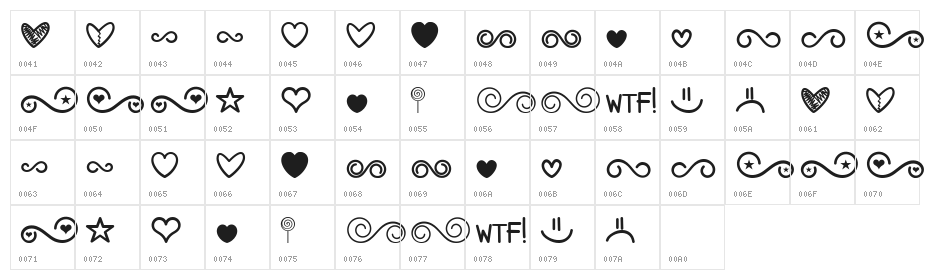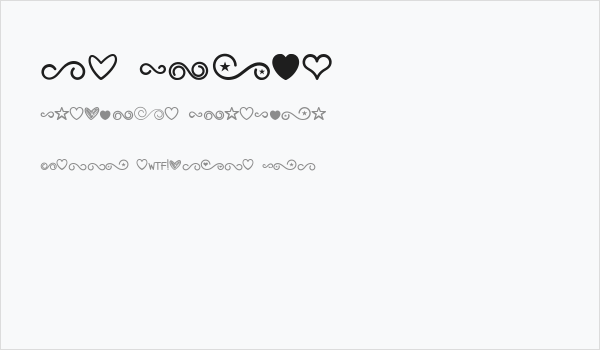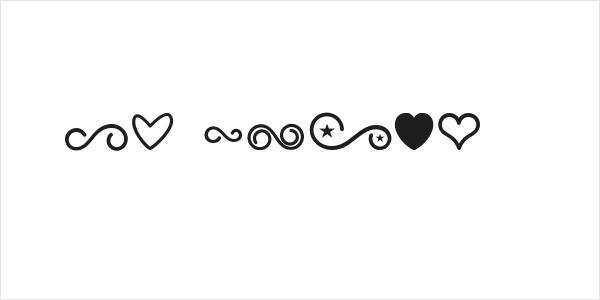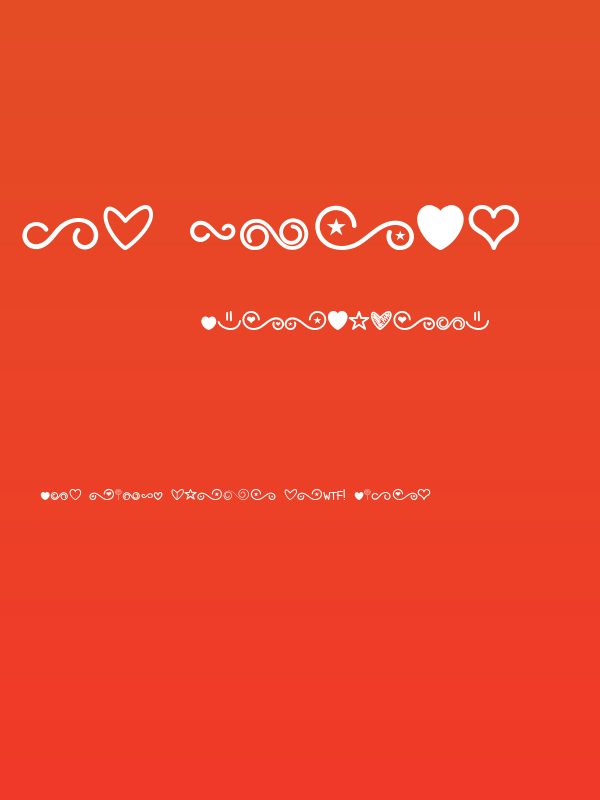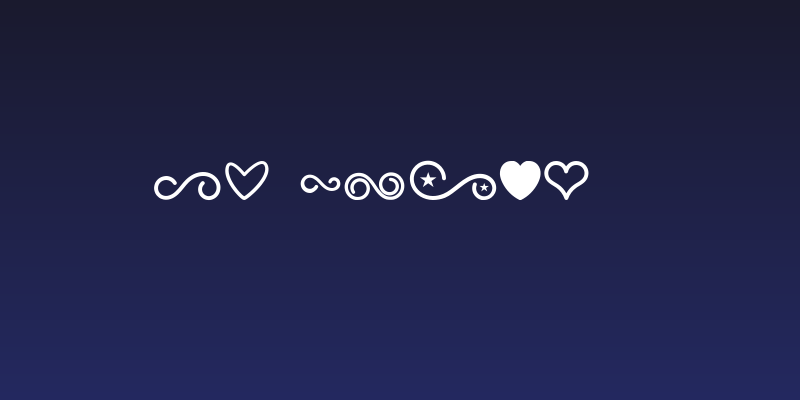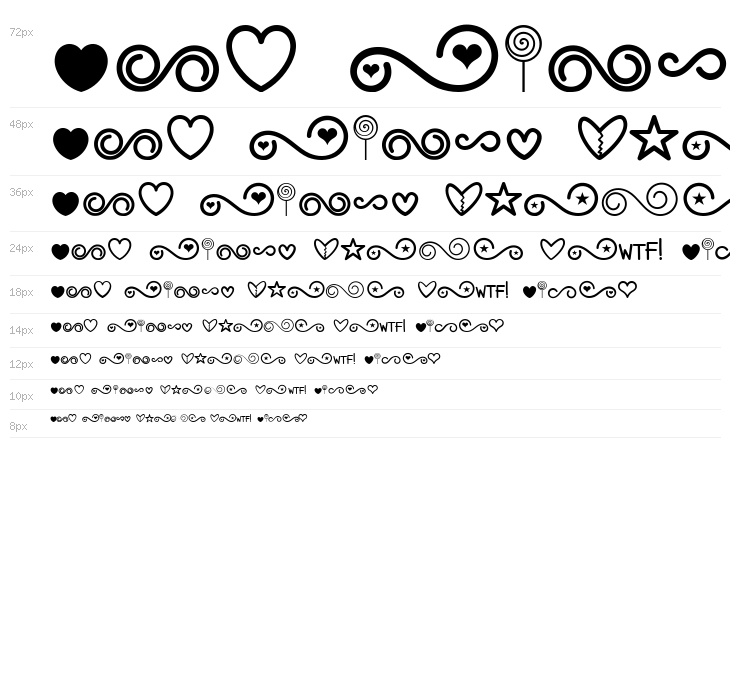
MF Dings 3 Font
MF Dings 3 Description
This font is a playful and decorative collection of symbols and dingbats, featuring a variety of whimsical designs such as hearts, stars, swirls, and emoticons. The characters are bold and expressive, with a hand-drawn feel that adds a touch of fun and creativity. The elements are perfect for adding a unique flair to projects that require a lighthearted and artistic touch. The symbols are well-defined and can be used to create borders, embellishments, or standalone decorative elements.
| Use Case | Logos, Headlines, Decorative elements |
| Proposed Projects | Ideal for greeting cards, scrapbooking, party invitations, and playful graphic designs. |